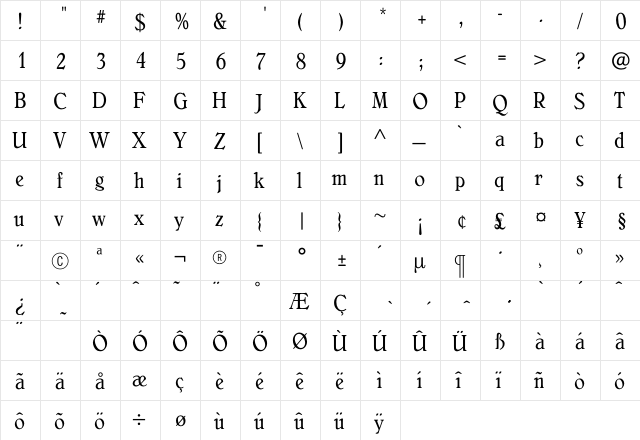
BelliniOriginalCondensed Regular
Design Context for BelliniOriginalCondensed Typeface
BelliniOriginalCondensed is a composed and adaptable typeface that performs quietly and consistently across a wide range of design contexts. The condensed width makes it efficient for tight spaces without sacrificing legibility.